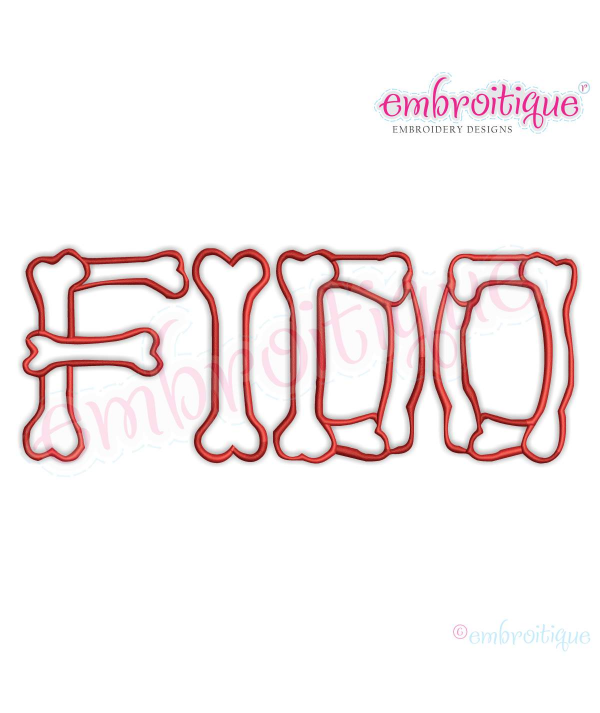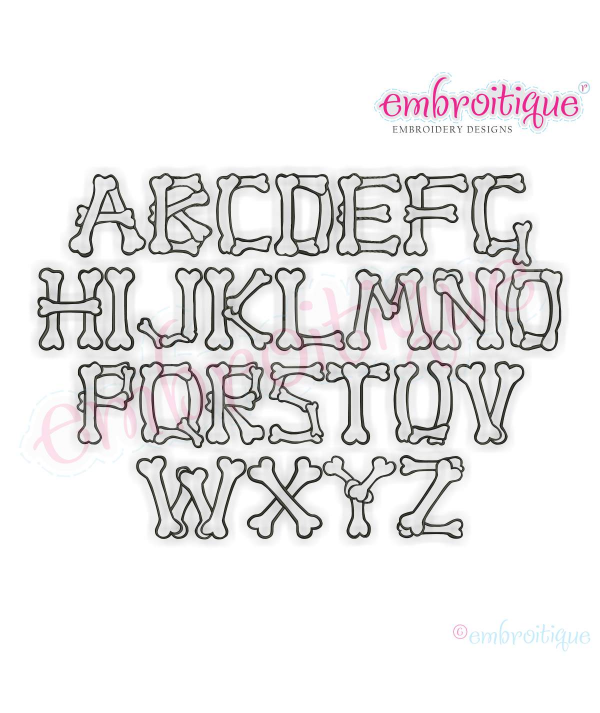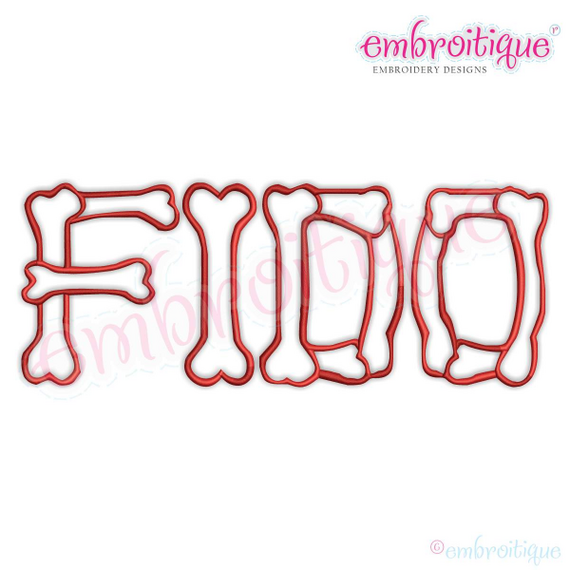
Dog Bone - Skeleton - Great font for Halloween!
This was a set that was done years ago, and never made it onto the last version of our site. Such a great set for Halloween!